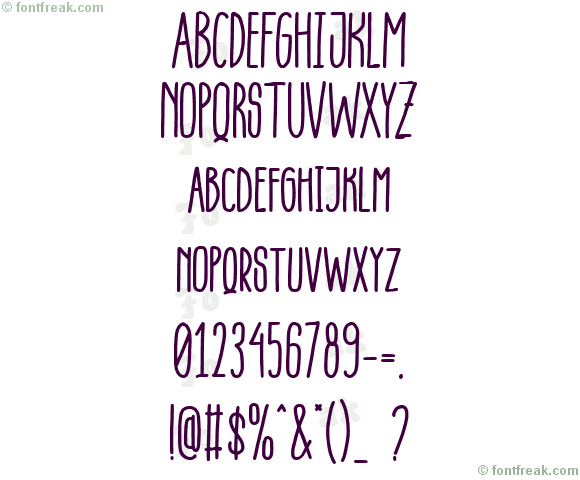
Inzania
About Inzania
Inzania, crafted by Kong Font, is a unique display typeface that effortlessly merges contemporary design with artistic flair. This font stands out with its playful yet refined character, making it a perfect choice for a variety of creative projects. The strokes exhibit a balanced weight, offering a harmonious contrast that enhances readability while maintaining a distinctive style. The spacing is thoughtfully designed, allowing for a smooth flow of text, which is ideal for both headlines and body content.
Inzania features decorative elements that add a touch of whimsy, making it particularly suitable for use in wedding invitations, where elegance meets personality. Its charming design also makes it an excellent choice for movie posters, where it can capture attention and convey a sense of excitement. Additionally, restaurant menus benefit from Inzania's artistic flair, inviting patrons to explore the culinary offerings with a sense of sophistication. Content creators and graphic designers will find this font invaluable for social media graphics and promotional materials, as it adds a unique touch that engages viewers.
Author Kong Font